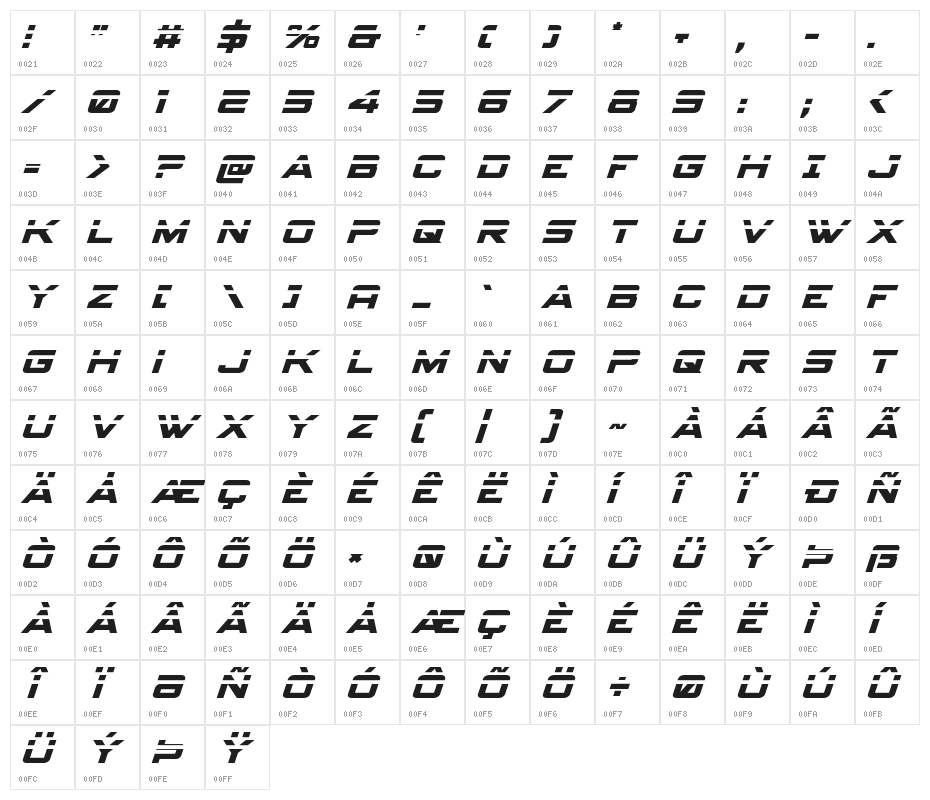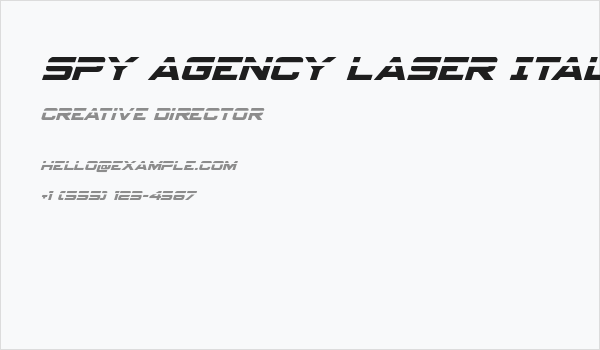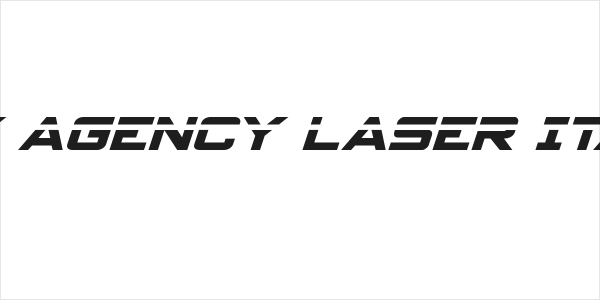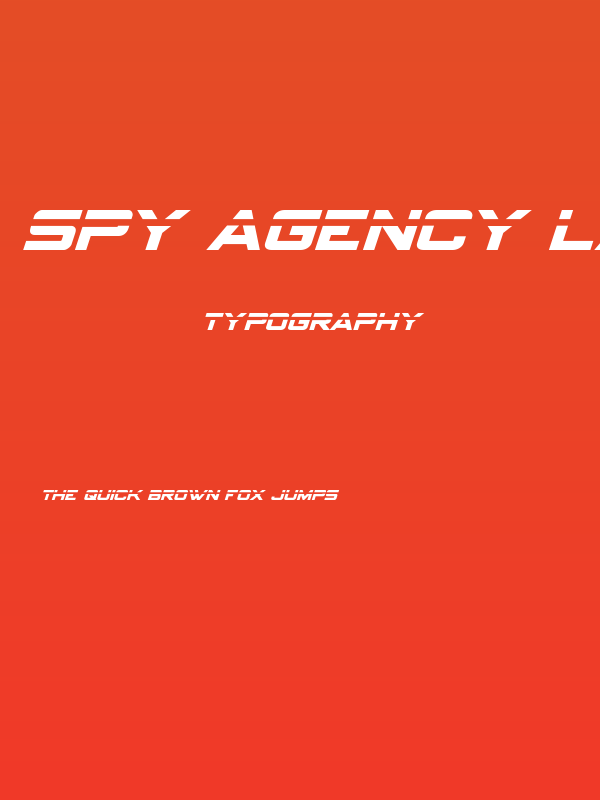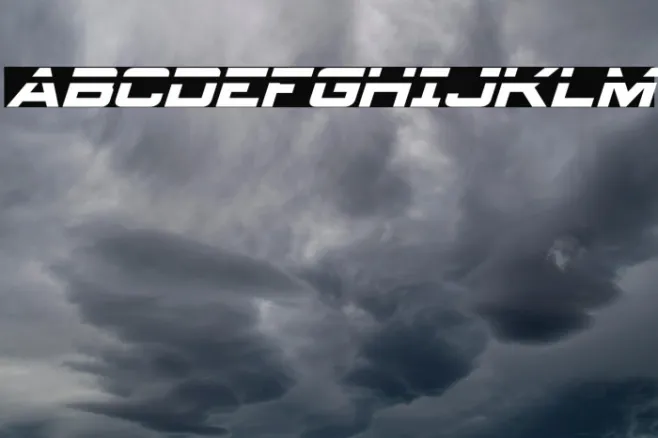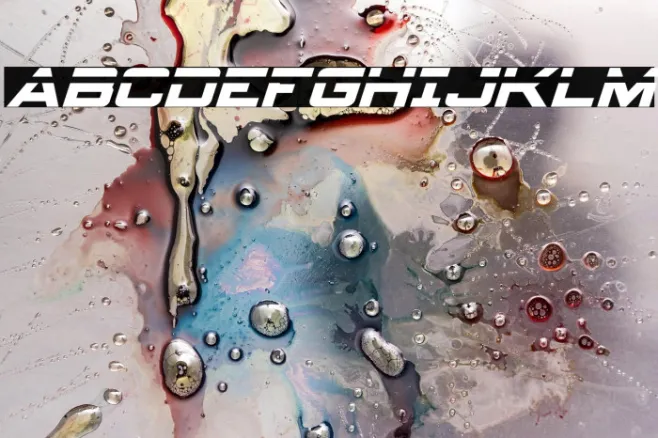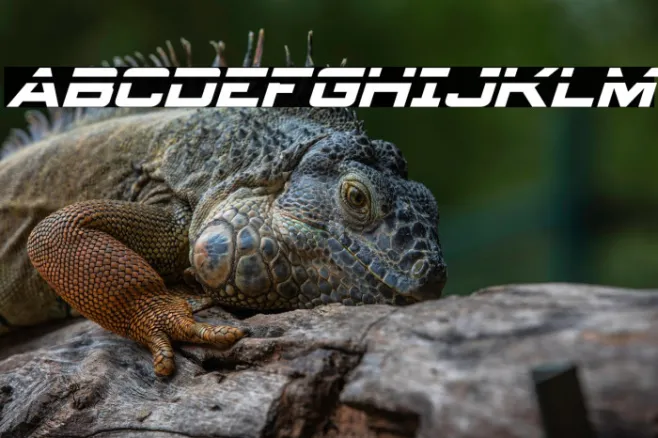
Spy Agency Laser Italic Font
Spy Agency Laser Italic Description
This typeface exudes a futuristic and dynamic aesthetic, characterized by its sharp, angular lines and italicized slant. The letters are bold and convey a sense of speed and motion, reminiscent of high-tech environments or espionage themes. The uppercase and lowercase letters maintain a consistent style, with a sleek, streamlined appearance. The numerals and special characters are designed to match the overall theme, ensuring uniformity across all elements. The font's design is ideal for projects that require a modern, cutting-edge look, such as technology branding, sci-fi movie titles, or video game interfaces.
| Proposed Projects | Ideal for technology branding, sci-fi movie titles, video game interfaces, and modern advertising. |